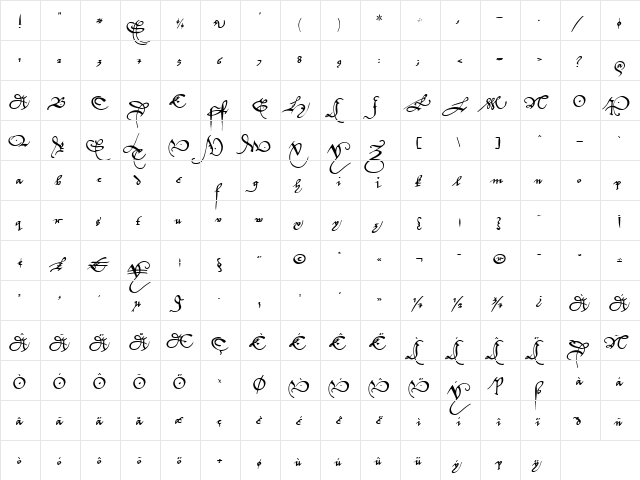
Secretary hand modern Regular
Design Context for Secretary hand modern Typeface
Secretary hand modern flows with the natural rhythm of handwritten lettering, making it ideal for designs that call for warmth and personal expression.
Font Pairing: Combine Secretary hand modern with a simple geometric sans for maximum contrast — the tension between flowing curves and clean structure is a classic typographic pairing.
Pro Tip: Use Secretary hand modern for short runs of text — names, titles, or taglines. Extended body copy in script faces tires the eye quickly.